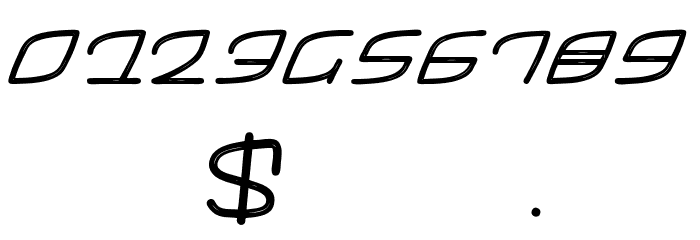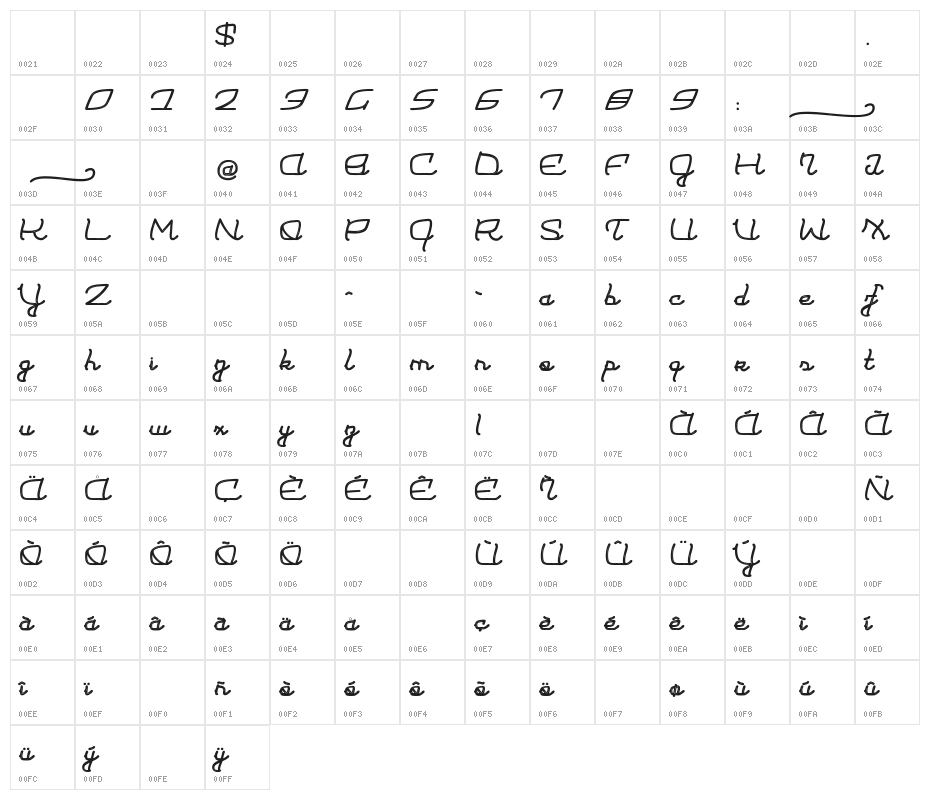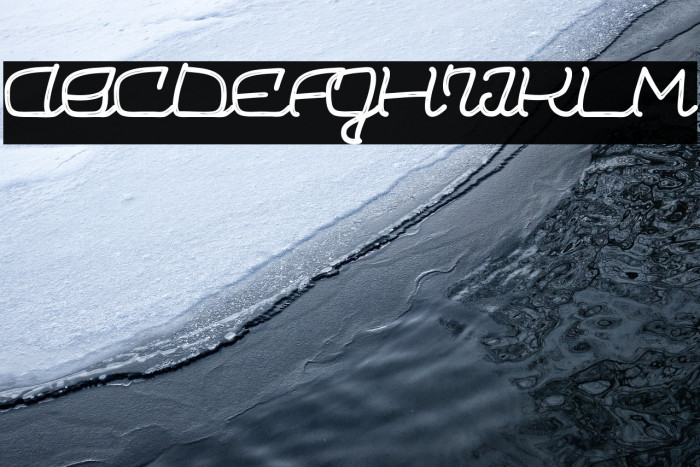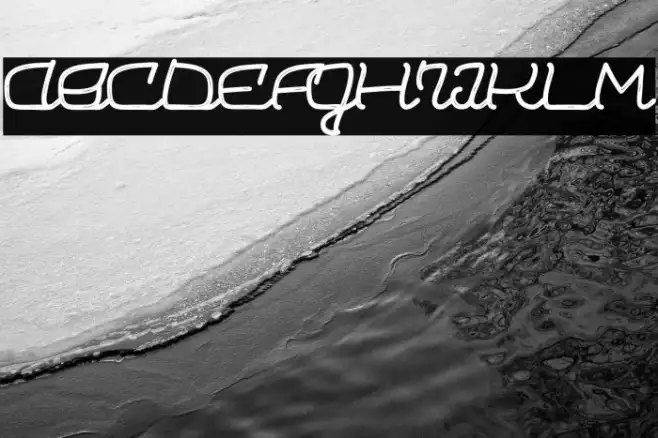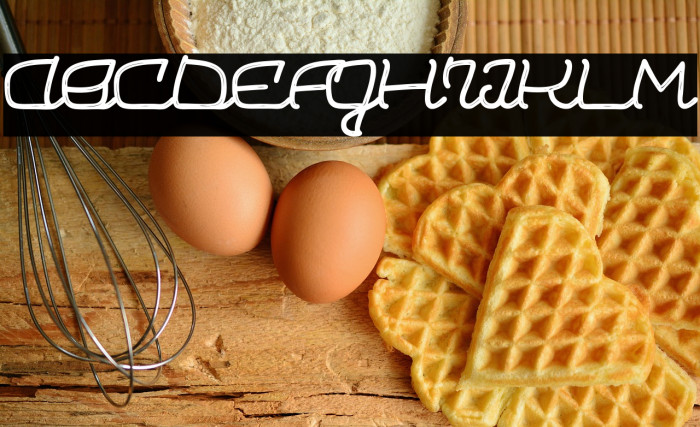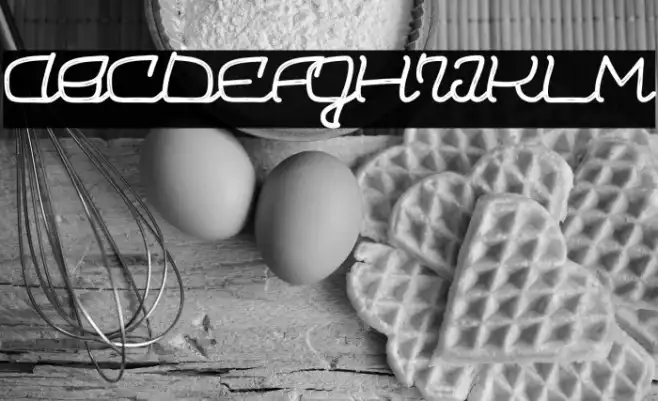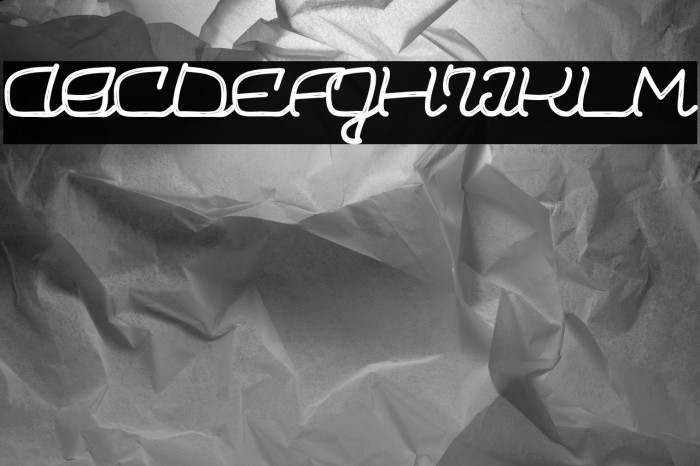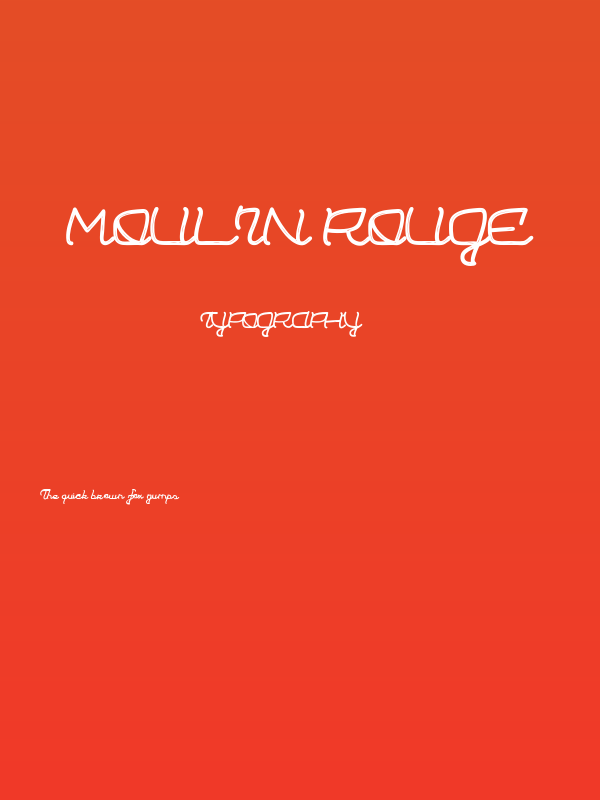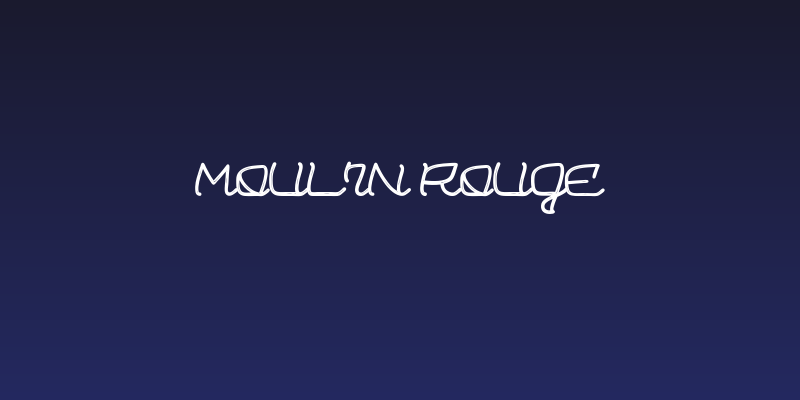
Moulin Rouge Font
Moulin Rouge Description
This font exhibits a lively and dynamic cursive style, characterized by its fluid and interconnected letterforms. The strokes are smooth and continuous, giving it a handwritten appearance that is both elegant and approachable. The uppercase letters maintain a consistent height, while the lowercase letters feature distinctive loops and curves that enhance its playful nature. The numerals are designed to match the cursive flow, ensuring a cohesive look across all characters. Special characters like the dollar sign and period are seamlessly integrated, maintaining the overall aesthetic. This font's unique style makes it suitable for projects that require a personal touch.
| Proposed Projects | Ideal for wedding invitations, greeting cards, personal branding, and creative projects that require a personal and elegant touch. |